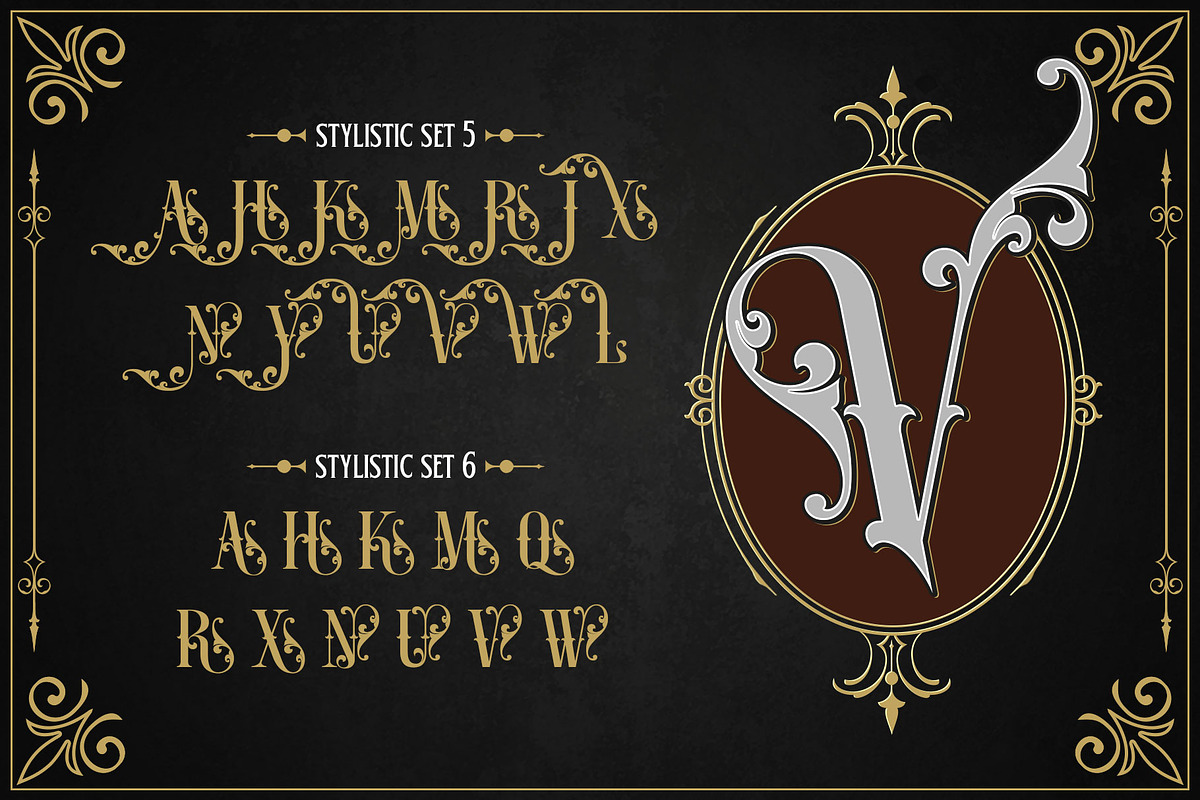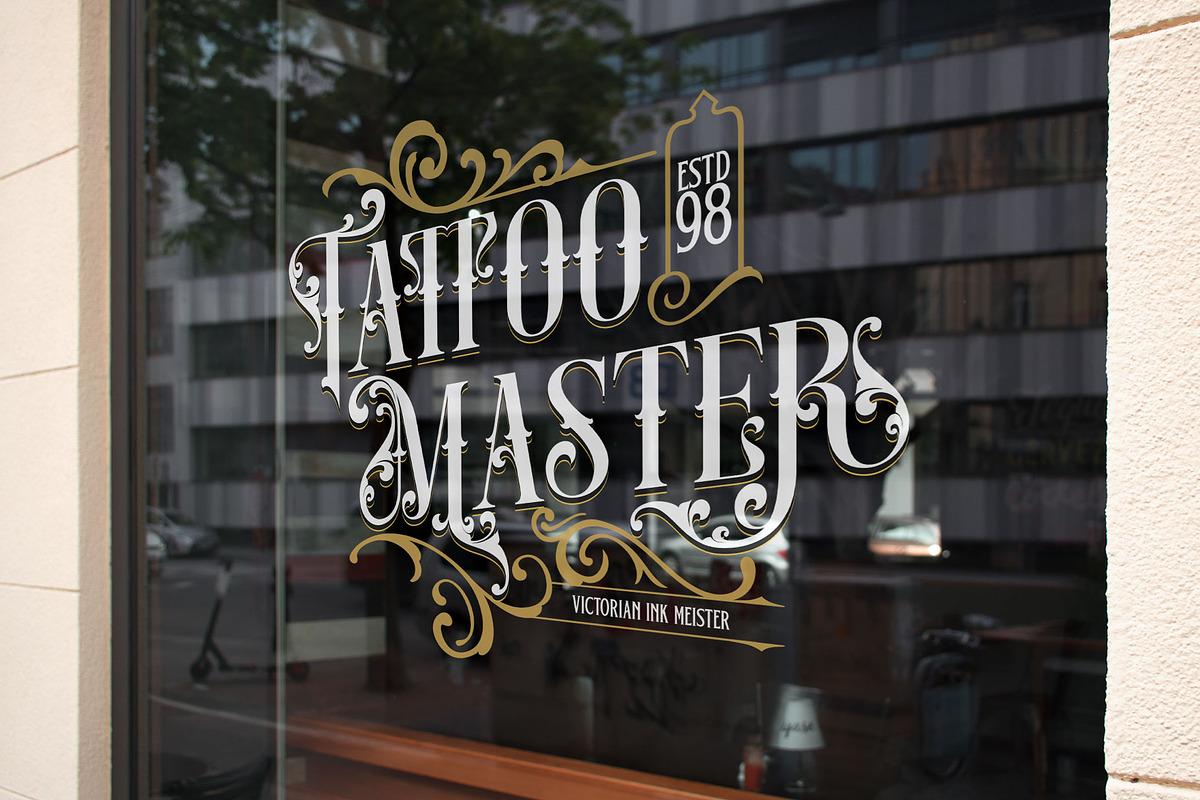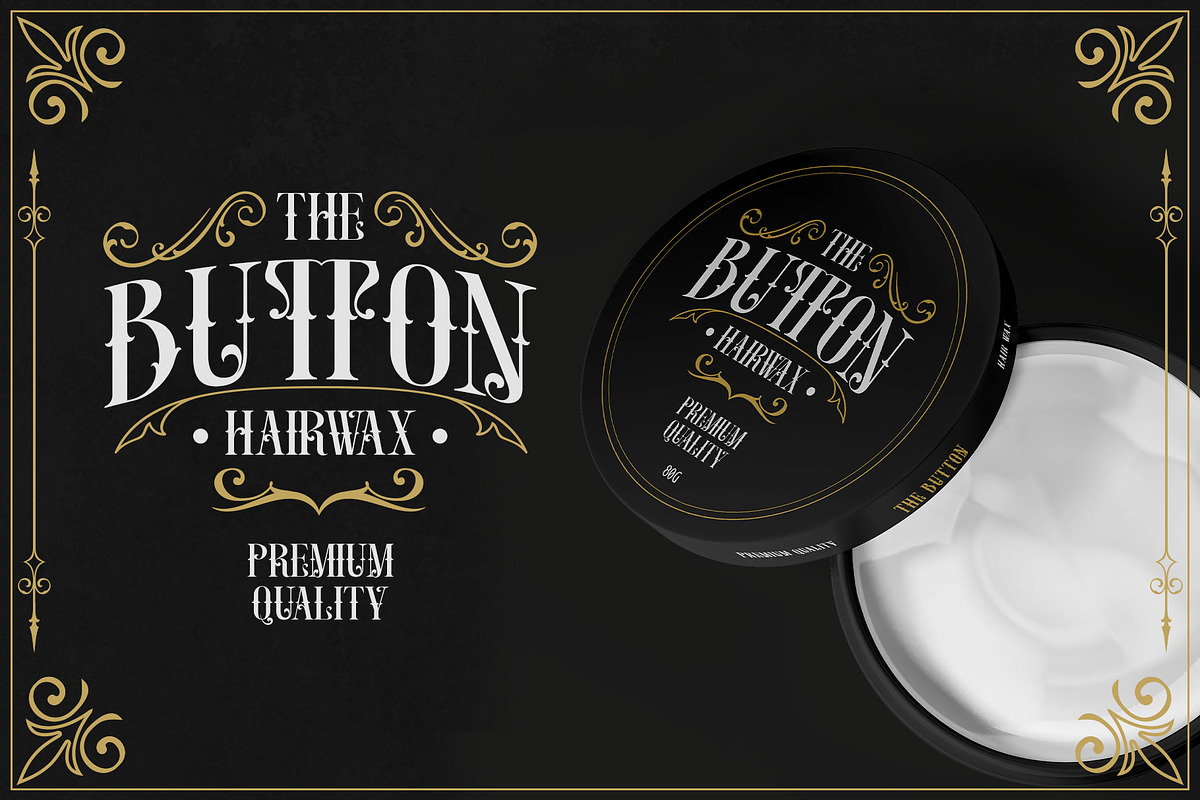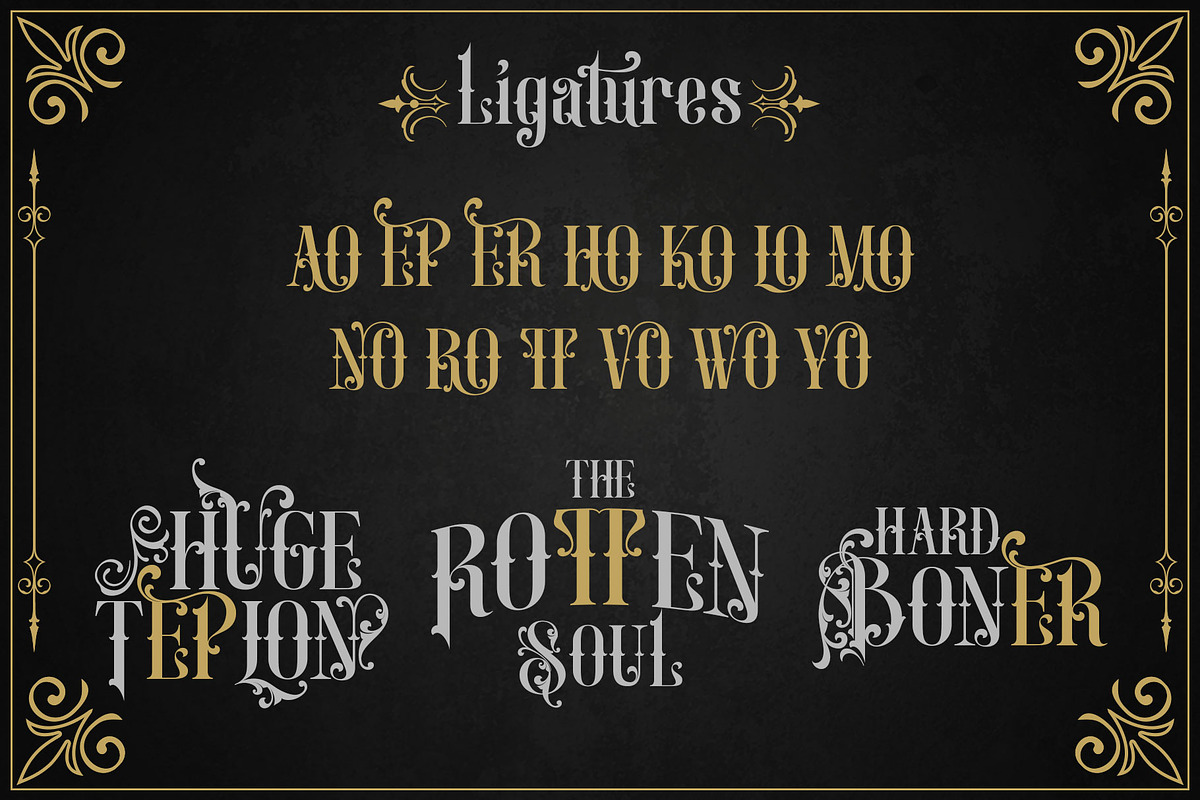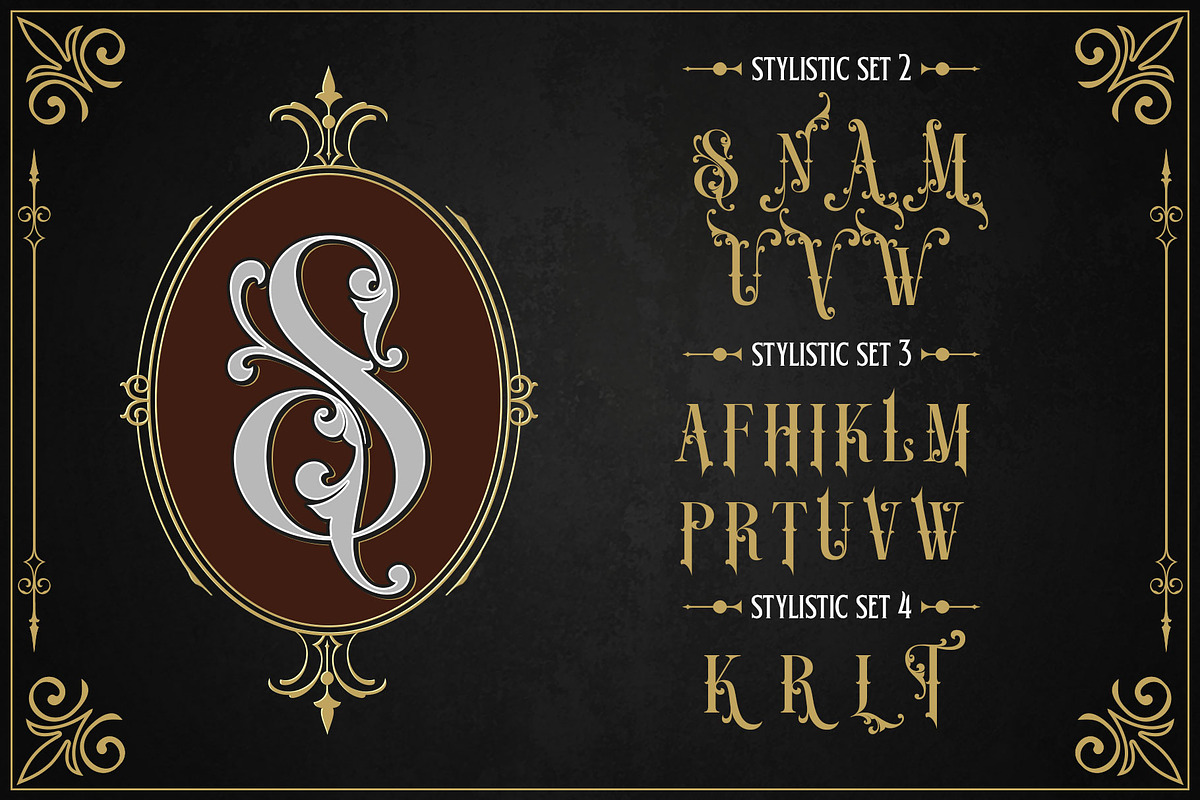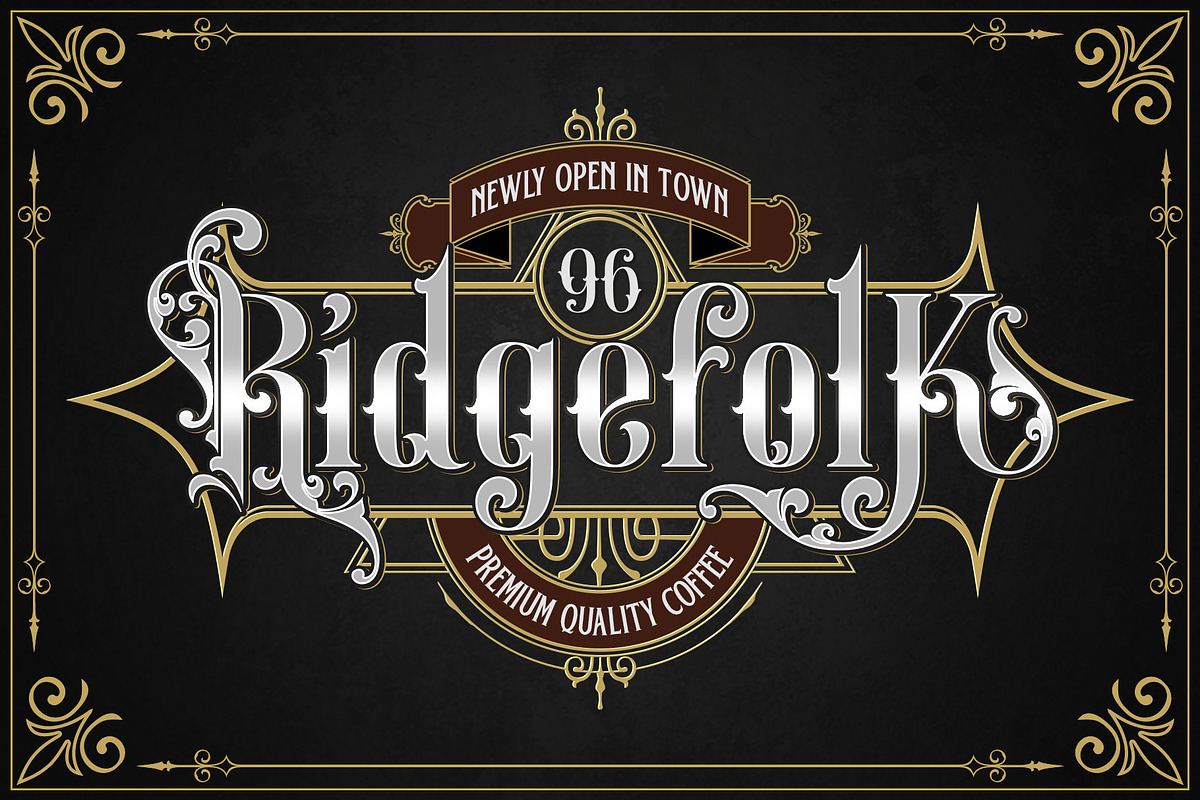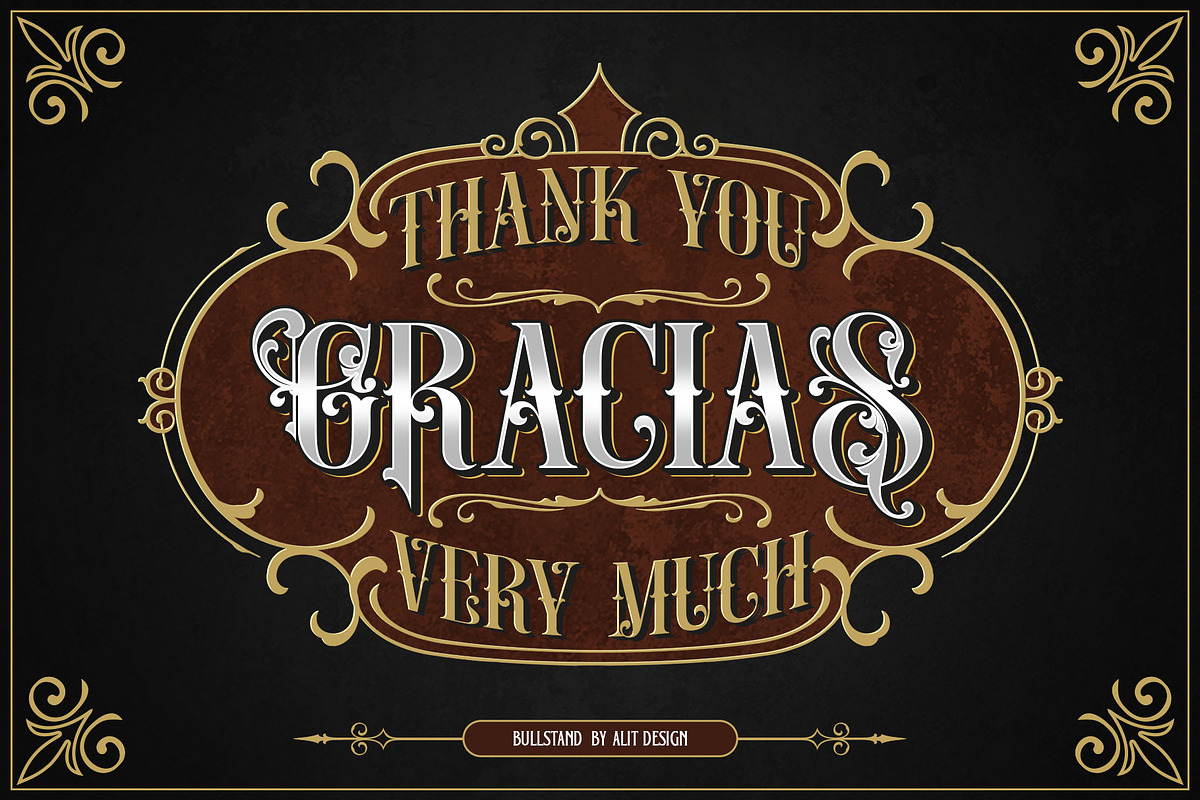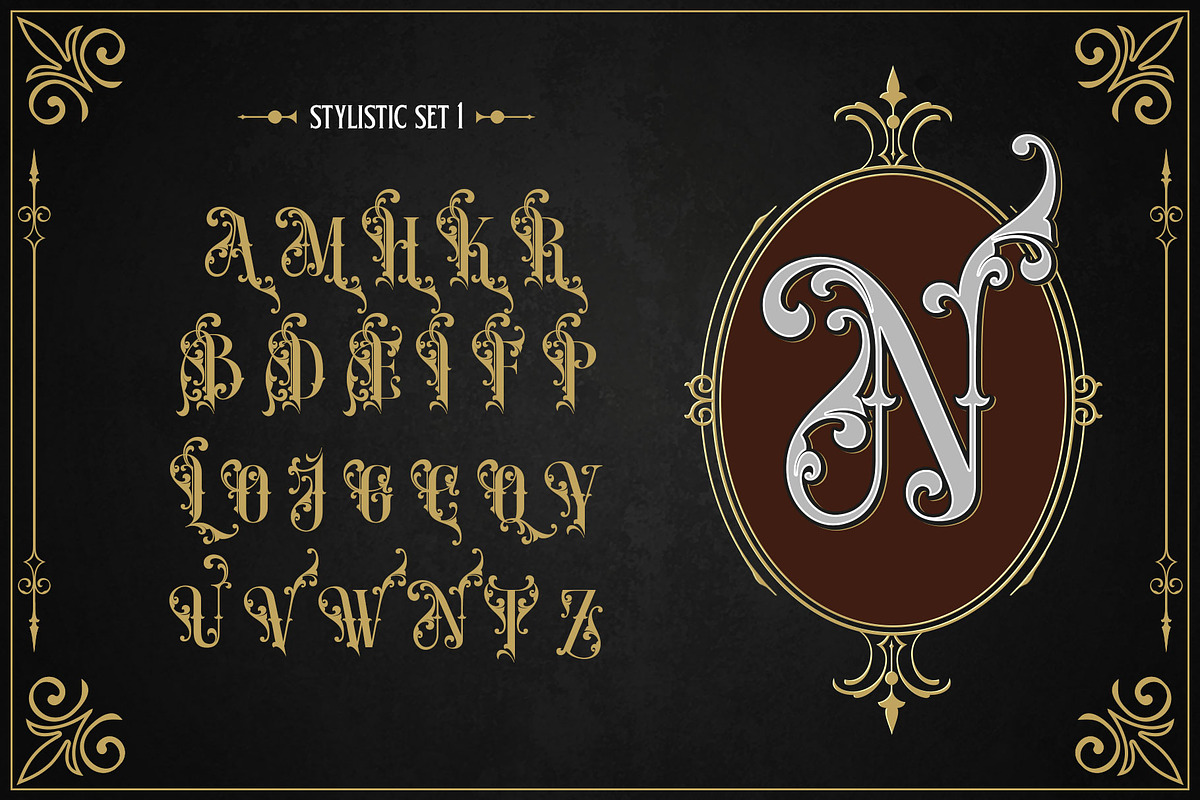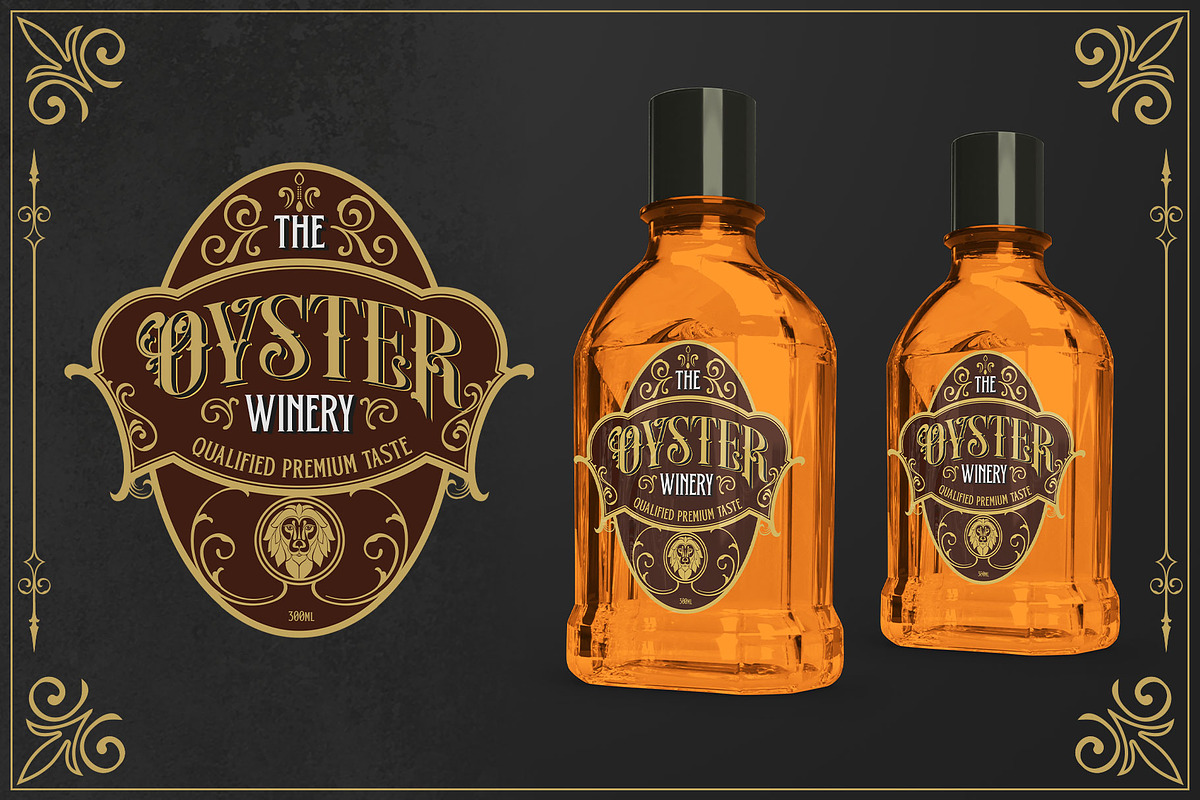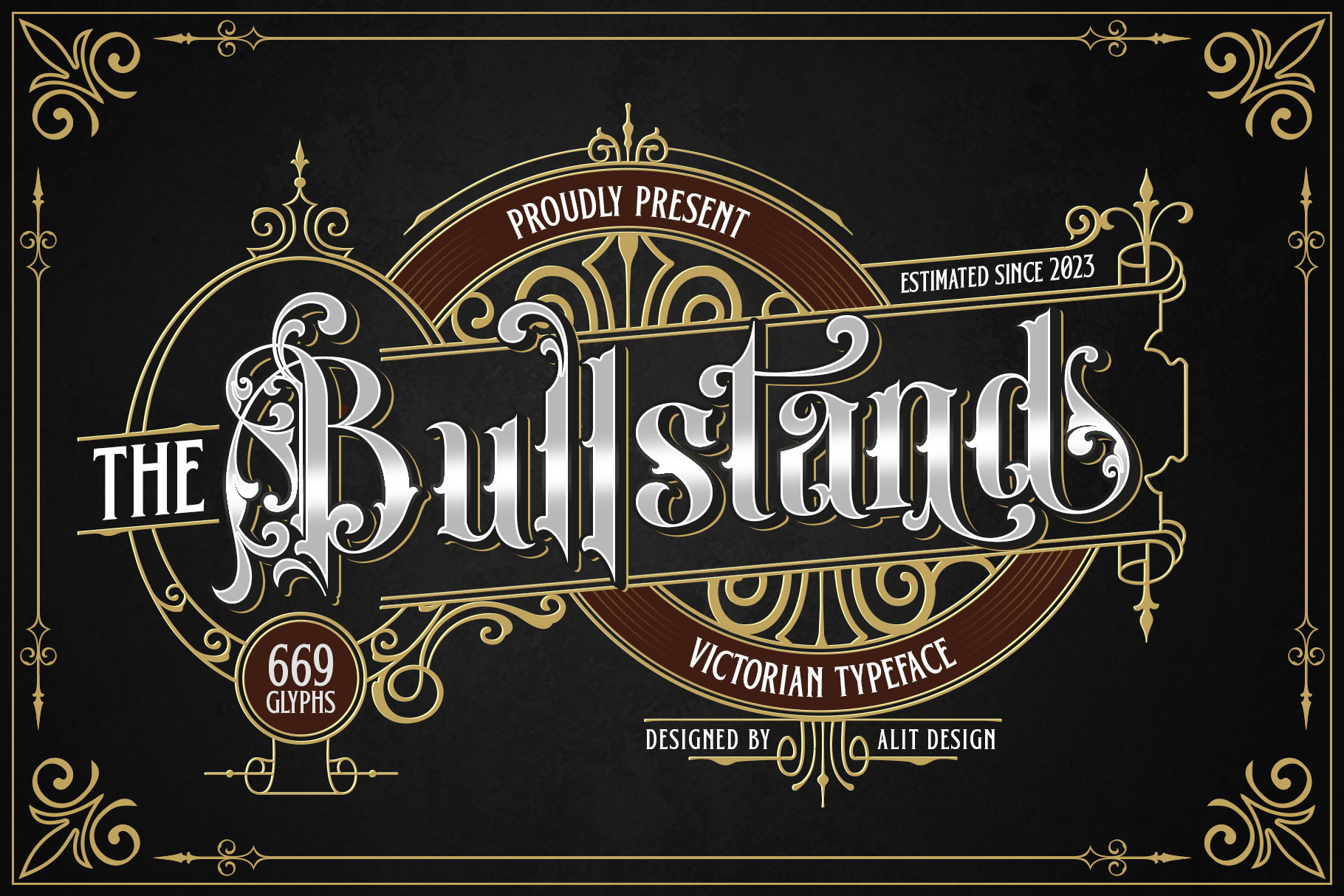
Bull Stand Typeface
The "Bull Stand Victorian" typeface is a distinctive and ornate font that exudes the elegance and intricacy of the Victorian era. This font is a testament to the attention to detail and craftsmanship that characterized the design aesthetics of that period. The typeface draws inspiration from the decorative elements and elaborate typography that were prevalent during the 19th century.
Alternate Characters: The typeface includes a variety of alternate characters for certain letters. These alternates provide different stylistic variations, allowing for creative and unique typographic layouts.
Ligatures: Ligatures are special characters that combine two or more letters into a single glyph. This font features ligatures that enhance the flow and aesthetics of the text, contributing to its vintage appeal.
Swashes: Swashes are elegant and curvaceous extensions or flourishes that adorn certain characters. The Bull Stand Victorian typeface offers swash variations that add a touch of sophistication and flair to the text. Visual Characteristics:
The Bull Stand Victorian typeface is characterized by its intricate detailing, ornate serifs, and elaborate curves. The letters are designed with a fine balance between boldness and delicacy, capturing the essence of Victorian elegance. The typeface showcases the artistic craftsmanship of the time, reflecting the meticulous attention paid to typographic design.
Usage: This typeface is particularly well-suited for projects that aim to evoke a sense of nostalgia, classicism, or vintage charm. It can be used in various design applications, such as:
Typography and Headlines: The ornate and decorative nature of the font makes it an excellent choice for titles, headers, and headings that require a touch of elegance and grandeur. Invitations and Stationery: The Bull Stand Victorian typeface can be used to create exquisite wedding invitations, event announcements, and formal stationery, setting the tone for a refined and sophisticated affair.
Logo and Branding: Brands seeking a vintage-inspired aesthetic can use this typeface to establish a unique and memorable visual identity that harks back to the Victorian era. Packaging and Labels: The intricate details and swashes can enhance product packaging and labels, making products stand out on the shelves with an air of timeless elegance. In summary, the Bull Stand Victorian Typeface is a versatile font that encapsulates the opulence and charm of the Victorian era. Its alternates, ligatures, and swashes contribute to its versatility, making it an excellent choice for projects that require a touch of vintage flair and sophistication.